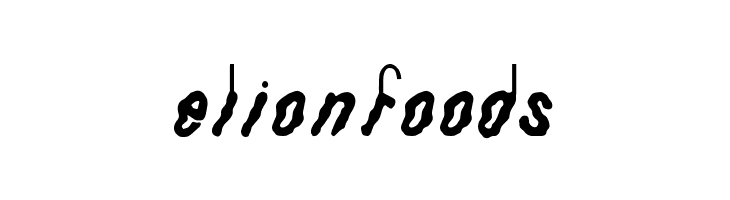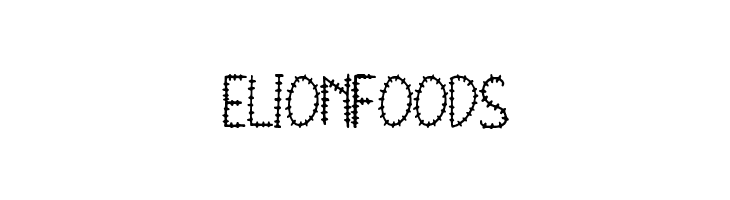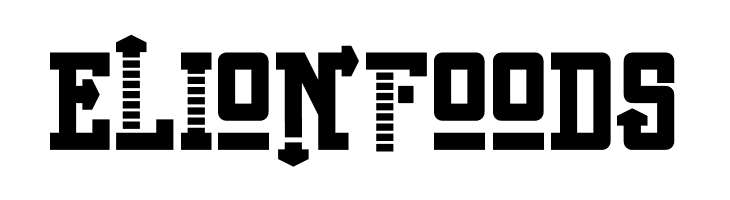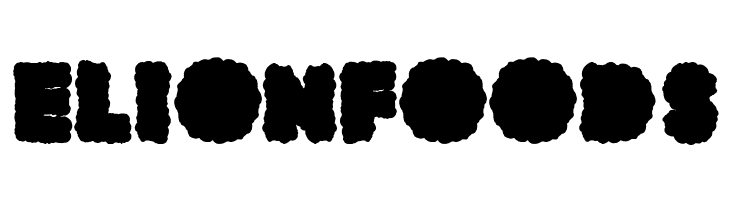
Illustrative, fashion-themed decorative display font featuring women in various poses.
( Fonts by Billy Argel Fonts ® )
A bold, textured font with a playful, cloud-like design.
( Fonts by Jamie Collins )
A hand-drawn, organic font with wavy, irregular outlines.
( Fonts by Ditya Ananto )
A jagged, thorn-like font with a rugged, edgy appearance.
( Fonts by imagex )
A bold, decorative font with vintage Western-inspired elements and arrow-like serifs.